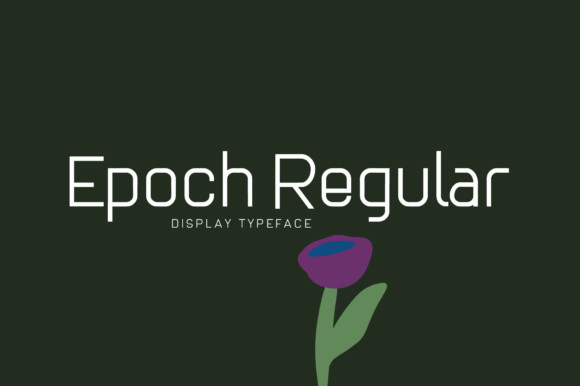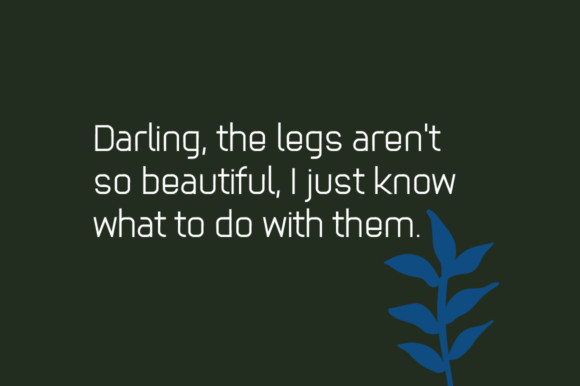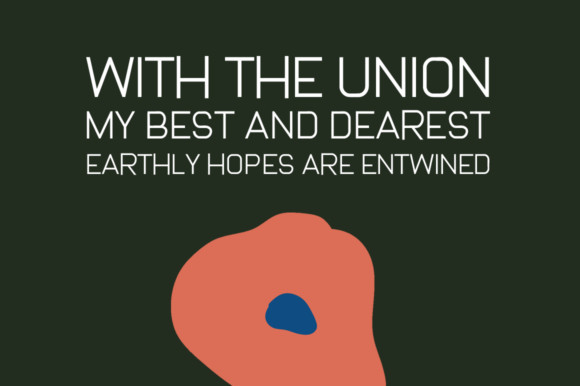
Epoch Regular Font
Epoch Regular is a timeless display font. This unique typeface is perfectly suited for stationery, logos, t-shirt, print design, website header, photo frame, flyers, posters and much more!